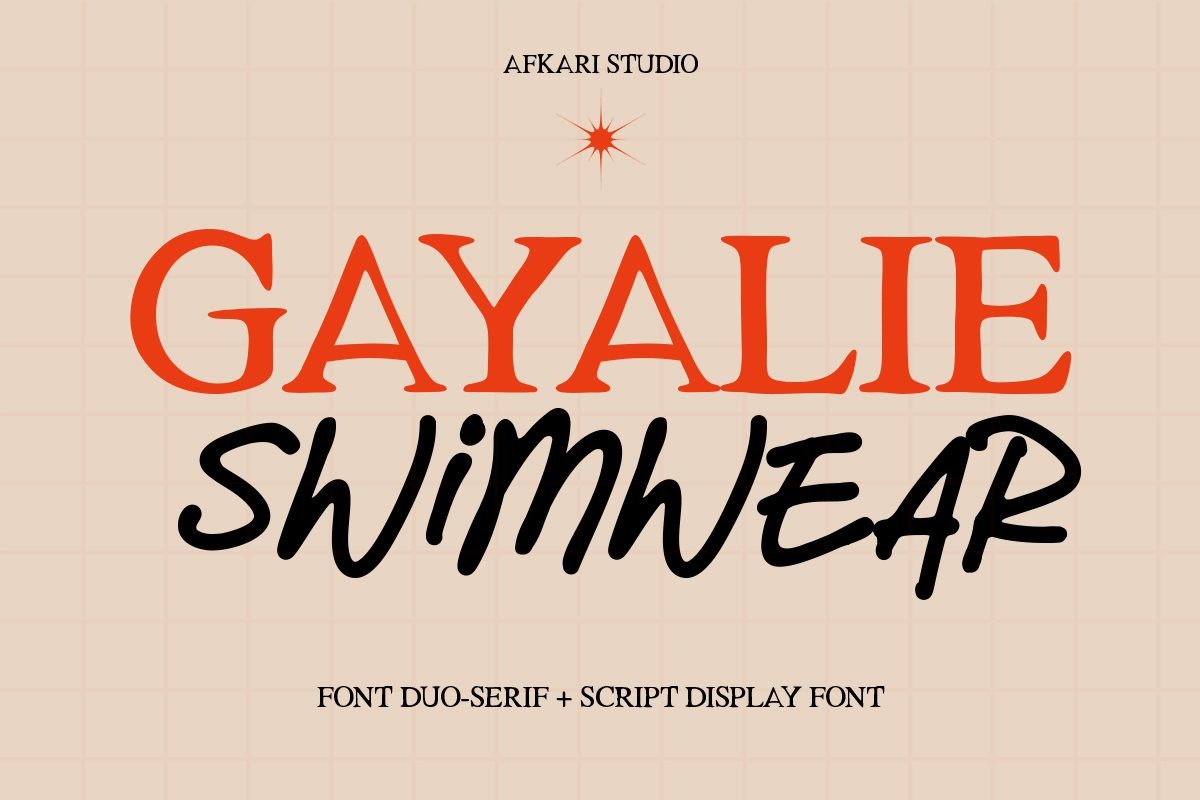
Gayalie Swimwear Font Duo
Gayalie Swimwear Font Duo is a flexible and reliable font created to fit multiple design needs, from branding and packaging to social media and editorial layouts. Gayalie Swimwear is a stylish serif and script font duo designed to deliver a perfect balance between elegance and femininity. Inspired by modern fashion branding and luxury swimwear aesthetics, this font pairing combines a clean, refined serif with a flowing handwritten script—creating beautiful contrast and visual harmony in every design.
This font duo is ideal for fashion logos, swimwear brands, beauty products, lifestyle branding, packaging, social media content, editorials, and wedding-inspired designs. The serif font provides structure and sophistication, while the script adds softness, movement, and a personal touch.
Gayalie Swimwear helps designers create luxurious, feminine, and modern branding with ease—no extra font pairing required.